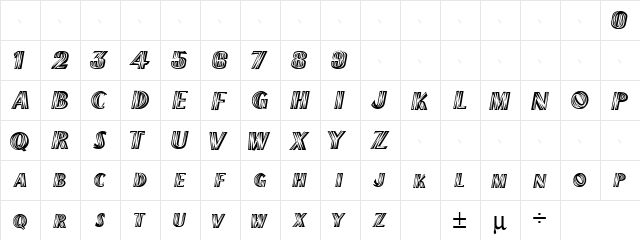
Chili Regular
Design Context for Chili Typeface
Chili is a composed and adaptable typeface that performs quietly and consistently across a wide range of design contexts.